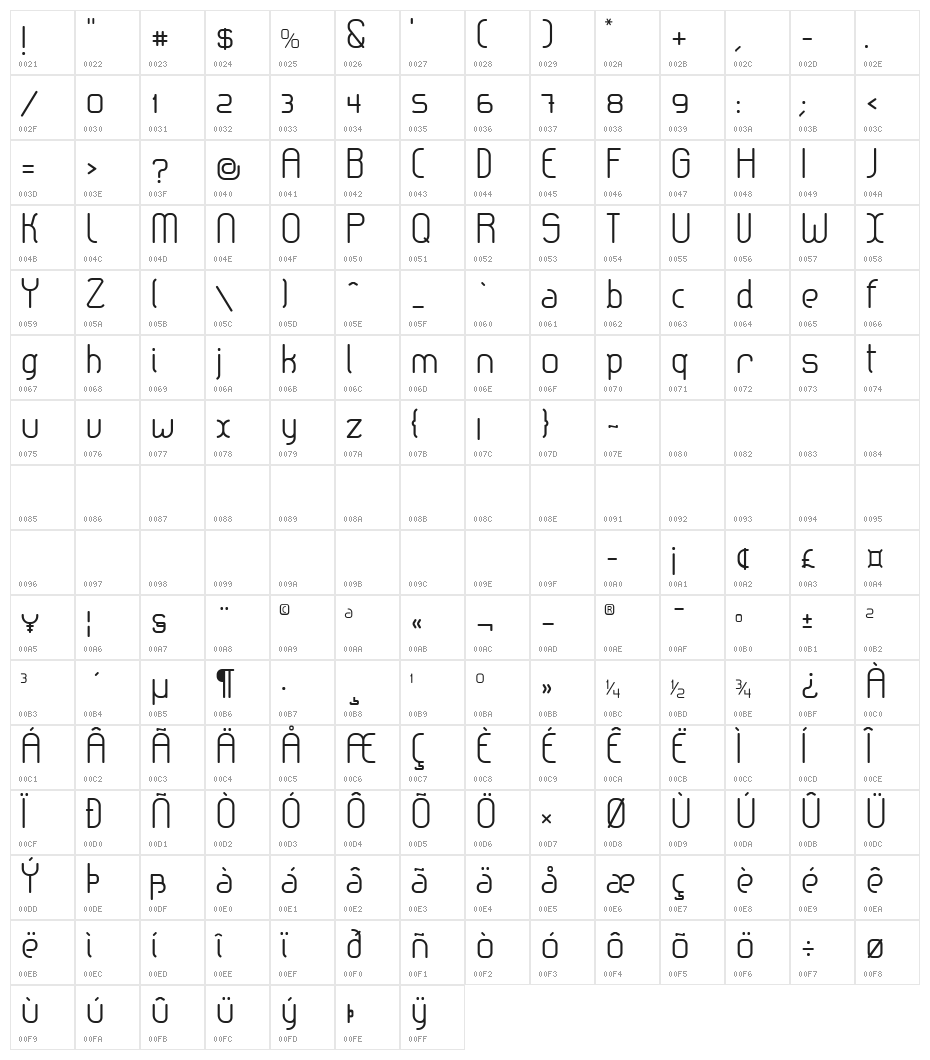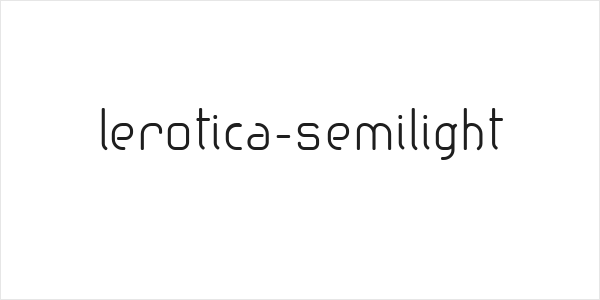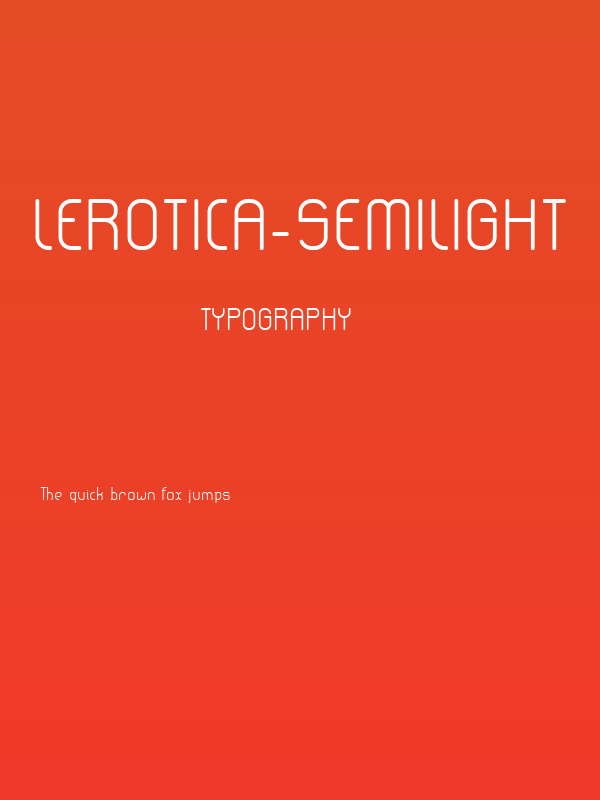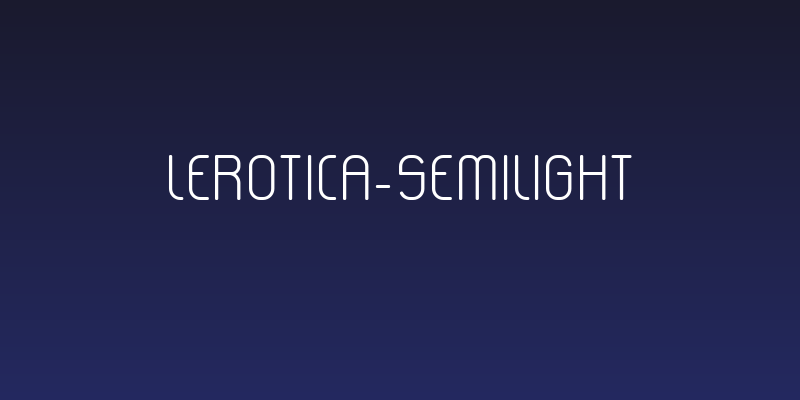
lerotica-semilight Font
lerotica-semilight Description
This font features a sleek, modern design with rounded edges and a clean, geometric structure. The characters are evenly spaced, providing a balanced and harmonious appearance. The uppercase letters are tall and slightly condensed, while the lowercase letters maintain a consistent height, contributing to a uniform look. The numerals are distinct and clear, matching the overall style of the alphabet. Special characters are designed with the same attention to detail, ensuring they integrate seamlessly with the rest of the font. This font is versatile, suitable for both digital and print media, and can be used to convey a contemporary and professional aesthetic.